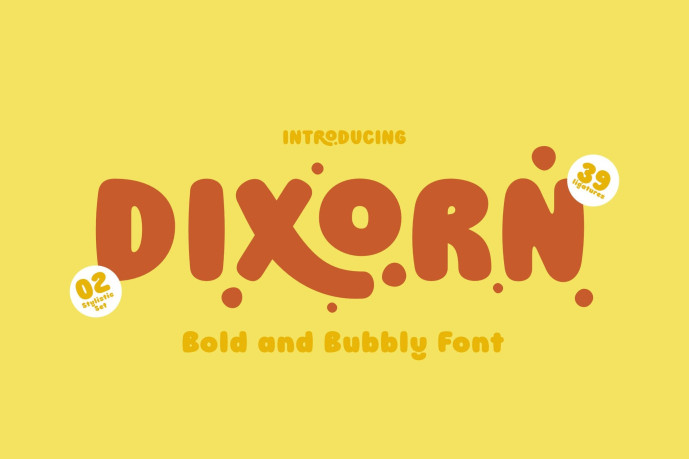
Dixorn – Bold Bubbly Font
Dixorn – Bold Bubbly Font, a bold, bubbly, and super expressive typeface! Each letter is crafted with smooth, rounded curves that make your text feel cheerful, friendly, and full of life.
It’s as if Dixorn is breathing air! The soft curves and tiny decorative dots resemble little water bubbles, giving every word a fresh, light, and lively vibe.
Its distinctive waterdrop style makes the letters look alive, flowing, and slightly dewy like they’ve just splashed out of a playful wave.
Perfect for designs that want to feel fun, joyful, and unique, from food packaging and children’s branding, to event posters and cheerful social media content.
Dixorn Features:
• 2 Stylistic Sets (SS01 & SS02) with playful letter variations and unique break-air dot effects
• 39 creative ligatures for more expressive and dynamic lettering
• Complete uppercase & lowercase letters
• Multilingual support, including accented characters
• Includes numbers, punctuation, and symbols